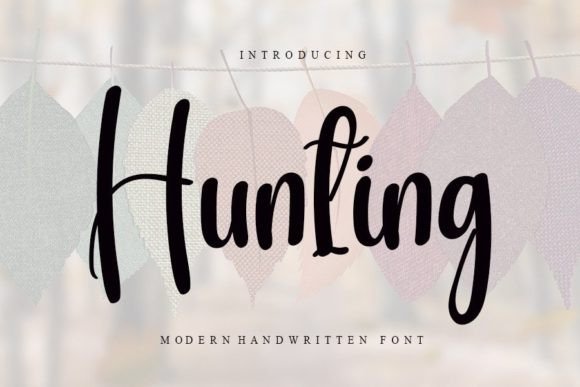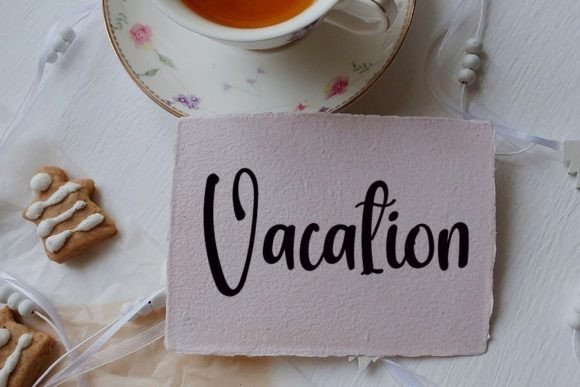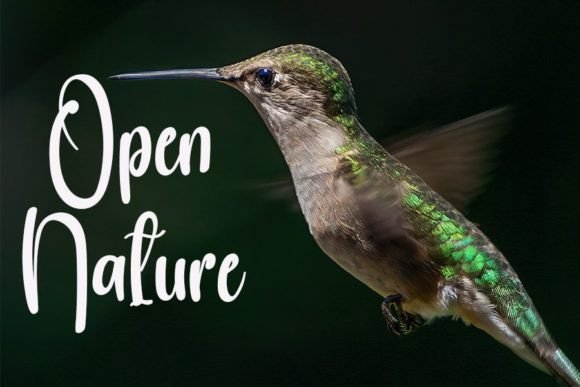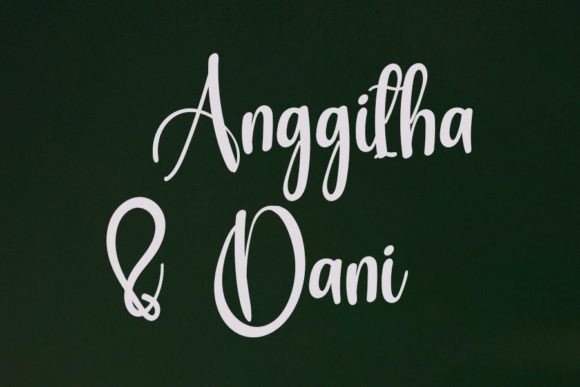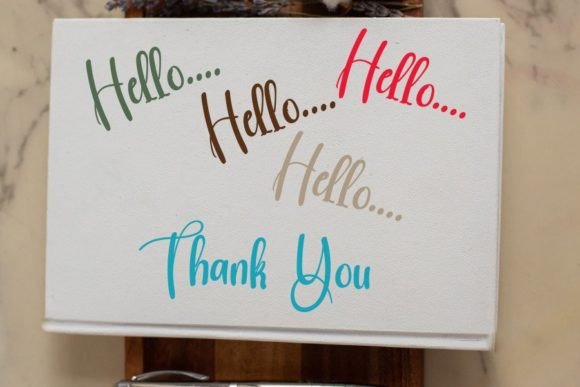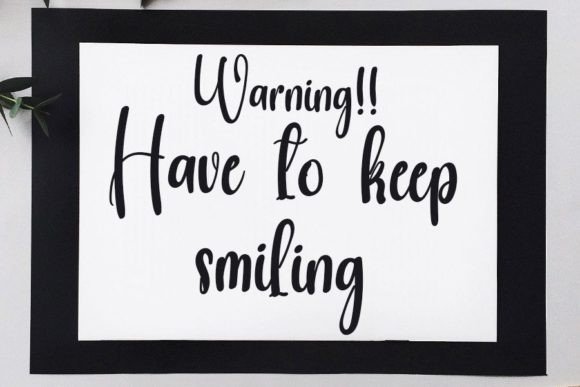
Hunting Font
About Hunting Font
Hunting Font: A Fusion of Timeless Elegance and Contemporary Freshness
In the expansive realm of typography, Hunting emerges as a delightful handwritten font, meticulously designed to earn its place as a cherished favorite among creators. It skillfully weaves together the timeless charm of calligraphy with a modern and fresh essence, resulting in a typeface that transcends trends and stands as a testament to thoughtful craftsmanship.
At its core, Hunting maintains a sense of class derived from traditional calligraphic influences. Each stroke is carefully considered, and every curve is artfully shaped to uphold an elegant aesthetic. This commitment to timeless design principles ensures that Hunting possesses a refined quality that seamlessly integrates with a wide array of creative projects.
What sets Hunting apart is its ability to bridge the gap between classic calligraphy and contemporary design trends. It doesn’t merely cling to the past; rather, it infuses a breath of fresh air into the script, creating a harmonious blend of sophistication and modernity. This duality makes Hunting versatile, suitable for a diverse range of applications, from formal invitations to cutting-edge branding.
When incorporated into creative projects, Hunting has the power to elevate them to extraordinary levels. Whether adorning wedding invitations, enhancing the visual identity of a brand, or gracing the pages of editorial designs, this font adds a touch of magic. Its handcrafted authenticity imparts a sense of warmth and personality, forging a connection with the audience that transcends the digital realm.
The beauty of Hunting lies not only in its visual appeal but also in its adaptability. Its legibility ensures that the message remains clear, while its artistic nuances contribute to a distinctive and memorable visual experience. Designers and creators alike can leverage Hunting to infuse their work with character and uniqueness, setting their projects apart in a crowded creative landscape.
In conclusion, Hunting is more than just a font; it’s a design companion that brings a perfect balance of tradition and innovation. By incorporating Hunting into your creative toolkit, you embrace a timeless yet contemporary aesthetic, ensuring that your projects not only meet but exceed expectations. Let Hunting be the brushstroke that adds elegance, charm, and a touch of the avant-garde to your creative canvas.